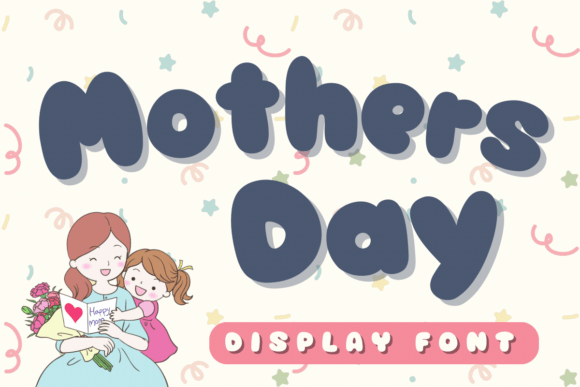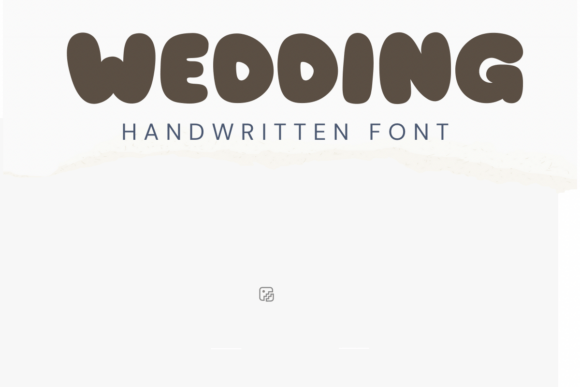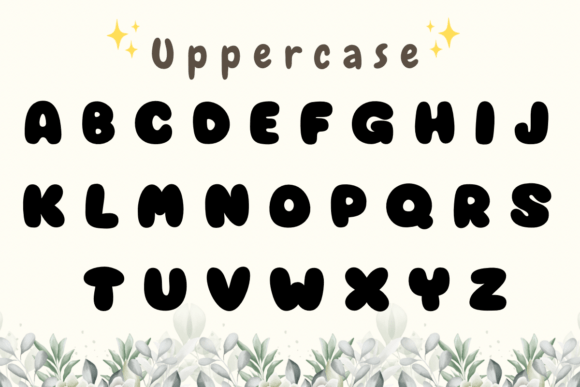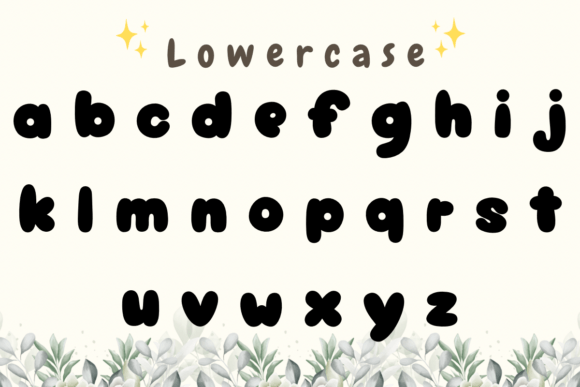
Mothers Day Font
About the Mothers Day Font
Let us introduce you to Mothers Day Font, where timeless design meets modern craftsmanship. Mothers Day is a chubby display font. You can use it for taking notes, a diaryor, making greeting cards. However, you can still use it for other designs, such as banners, content, mugs, cards, shirts, stationery, social media posts, and more!
Mothers Day’s playful, rounded forms make it ideal for headlines, short celebratory messages, and branding projects that need a touch of friendly approachability. It excels in applications like greeting cards, invitations, and short social media posts where its charming weight adds visual interest. However, its chunky design is less suitable for body text or UI elements; the large x-height and limited character variations hinder readability in extended passages.
For effective pairings, consider complementing its friendly nature. A clean sans-serif like Open Sans for body text would provide a strong contrast, maintaining readability without clashing. Alternatively, a delicate script font could add a touch of elegance for more formal applications. Avoid pairing it with other overly decorative or highly contrasting fonts, which could create visual chaos.
Its core personality is best described as cheerful and approachable, conveying warmth and a sense of occasion. Brands targeting a younger demographic, children’s products, or projects centered around celebrations and family would find Mothers Day to be an excellent choice.
Mothers Day Font Usage Examples
Mothers Day Font Example